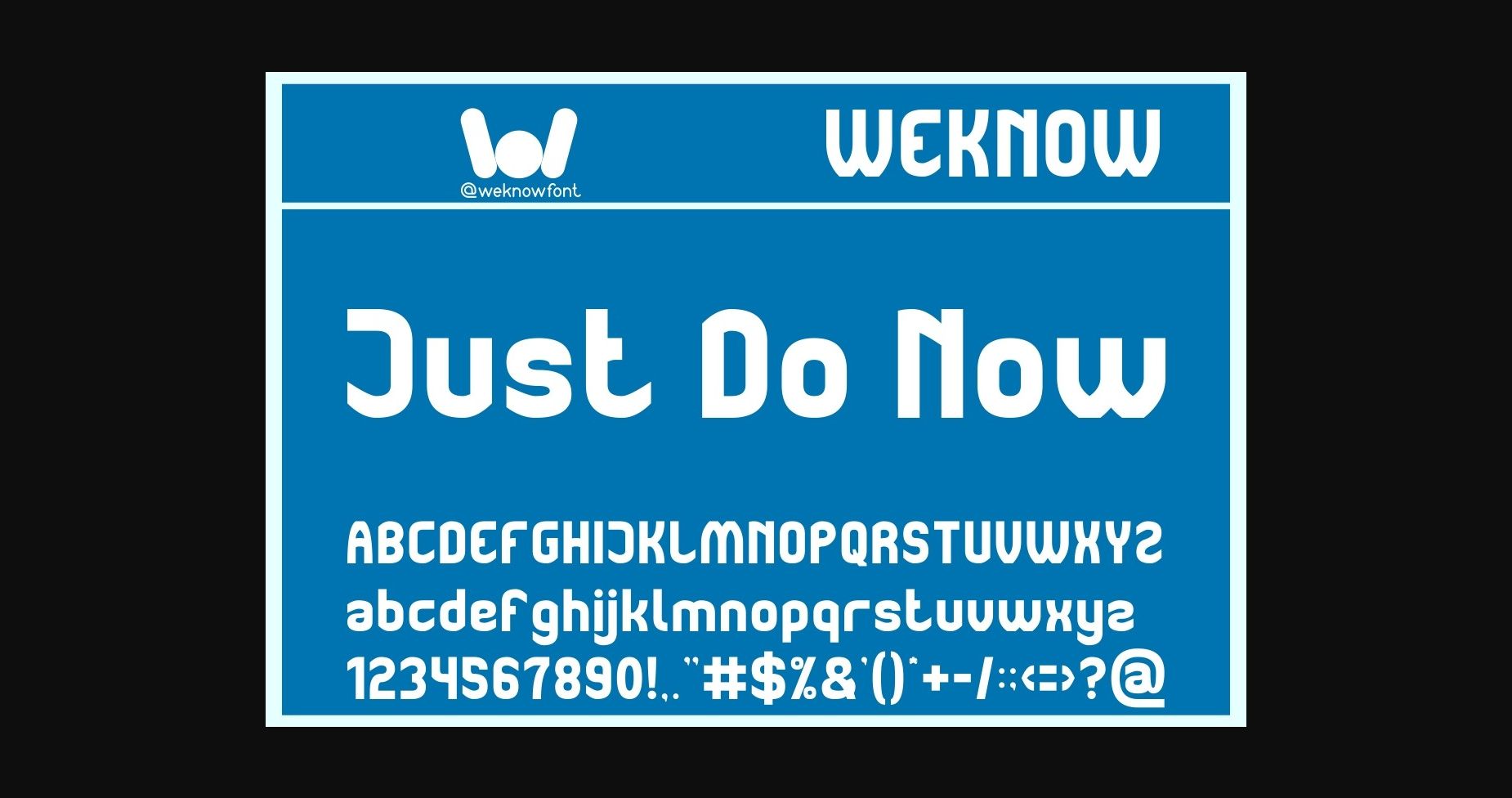
Just Do Now Font
About Just Do Now Font
Just Do Now is a basic various sans serif display font, suitable for a logo, logotype, headline, corporate identity, brand identity, apparel industry, poster, music, movie, game, magazine, book, comic, cartoon, YouTube, Instagram, website, or any of your creative design projects.